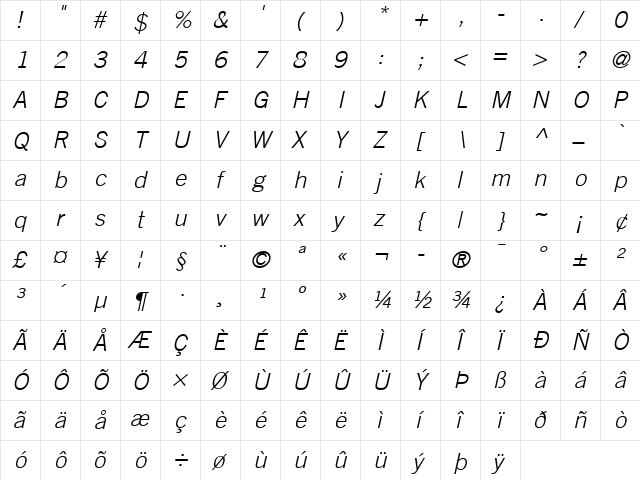
TradeGothic LT LightOblique Regular Font Preview
Design Context for TradeGothic LT LightOblique Typeface
TradeGothic LT LightOblique takes a clean, functional approach — its unadorned letterforms prioritise legibility and work reliably across screen and print environments. The dynamic lean of this cut emphasises speed and emphasis in any layout. Its slender proportions lend an understated elegance to any composition.
A natural fit for high-end product packaging, luxury brand identities, and refined web typography.
Font Pairing: Pair TradeGothic LT LightOblique with a medium or bold serif for headlines — the weight contrast creates an elegant, high-end feel.
Pro Tip: Use TradeGothic LT LightOblique with generous tracking and line-height for the most luxurious effect — light sans-serifs reward spacious, considered layouts.